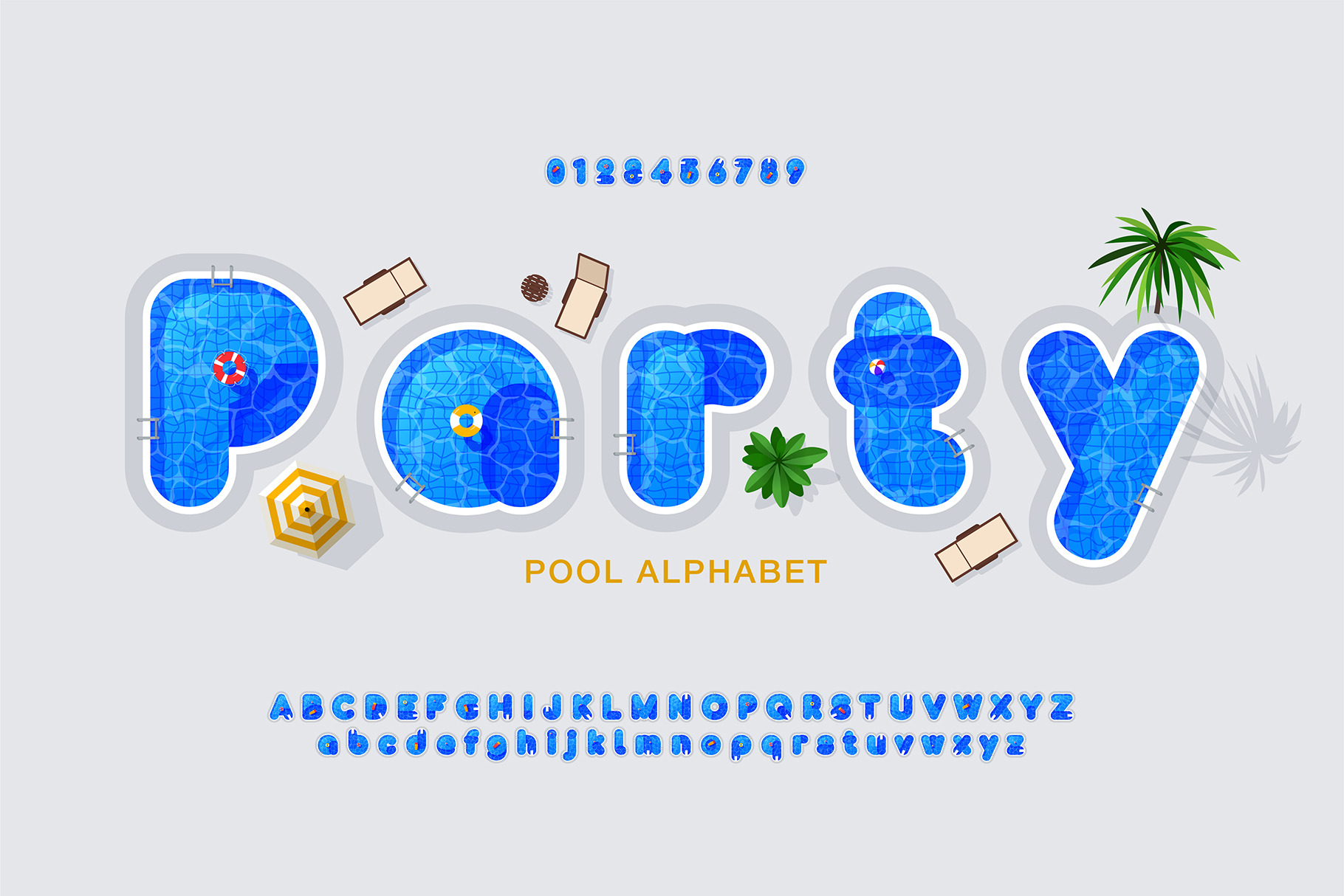
Summer Pool Water Font
Vector Summer Pool Alphabet. Water-Filled Letters and Numbers for Vacation, Party, and Travel Design Projects - EPS (Not a Font!)
- Uppercase letters A - Z
- Lowercase letters A - Z
- Numbers 0 - 9
- Clean, modern, and unique alphabet design